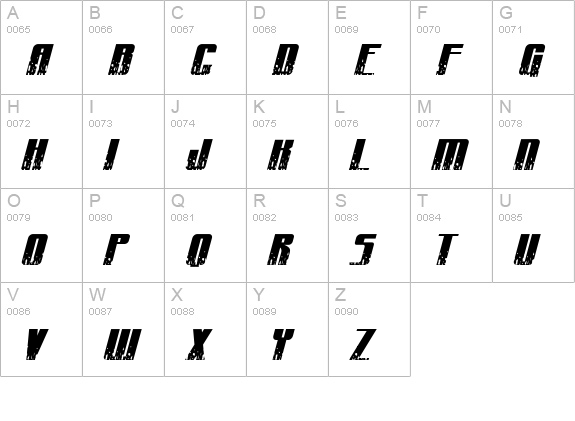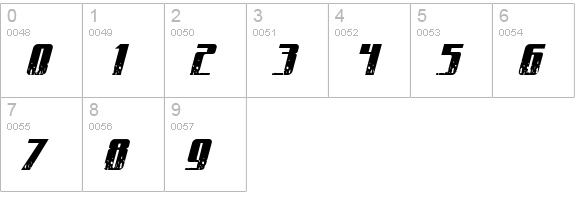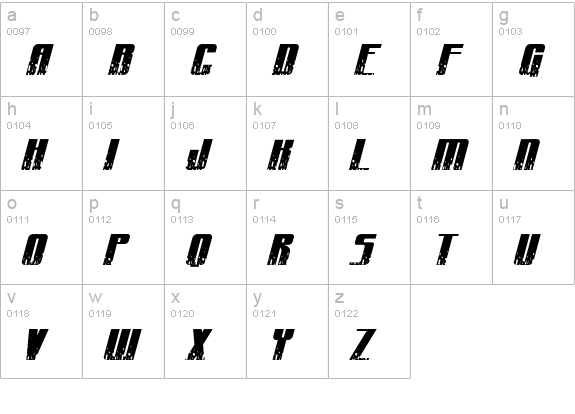
CraterFace Shrapnel BB Font Details
CraterFace Shrapnel BB font is a bold and edgy typeface that exudes a sense of ruggedness and power. Its sharp angles and fragmented design give it a unique and striking appearance, making it perfect for projects that require a strong and impactful visual presence. This font is ideal for headlines, logos, posters, and any design that needs to make a bold statement. Best of all, CraterFace Shrapnel BB font is available for free download at FontsMarket.com. So whether you're a designer looking to add a touch of aggression to your work or a hobbyist experimenting with typography, this font is a must-have in your collection. Get your hands on CraterFace Shrapnel BB font today and unleash its explosive potential in your designs!